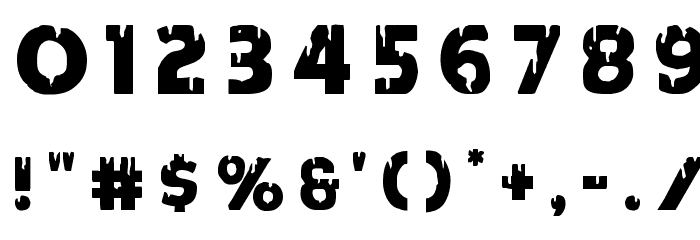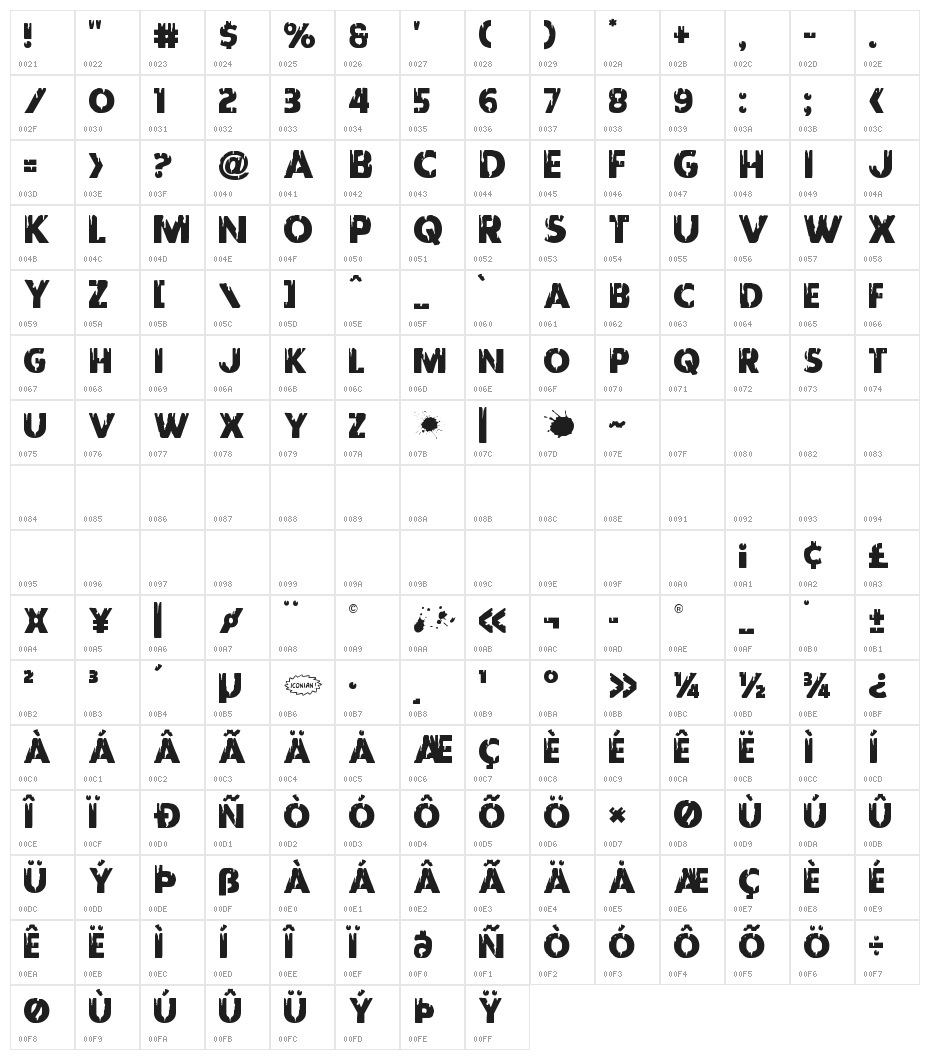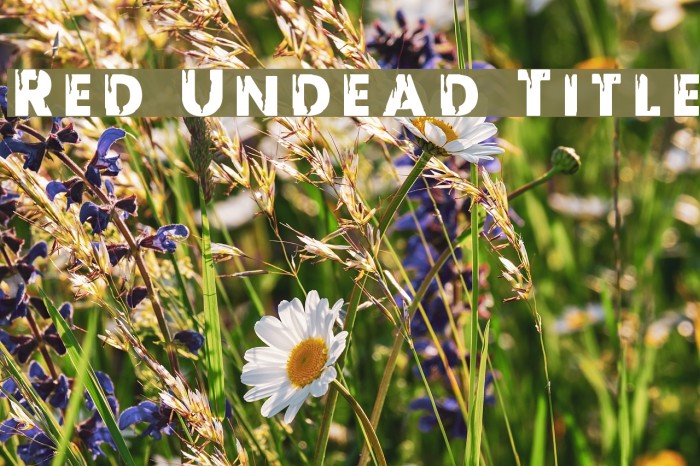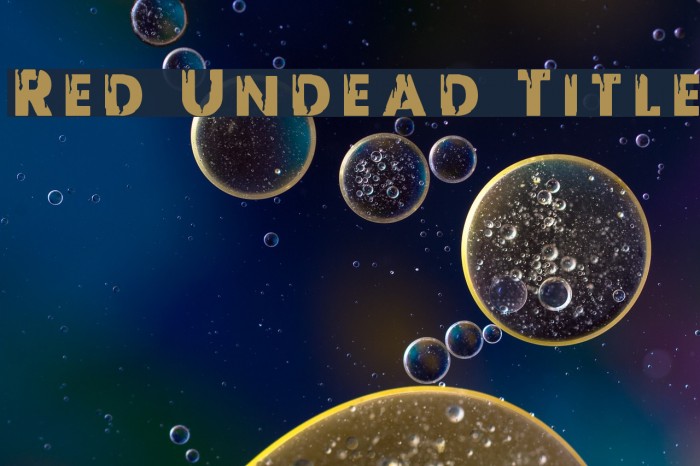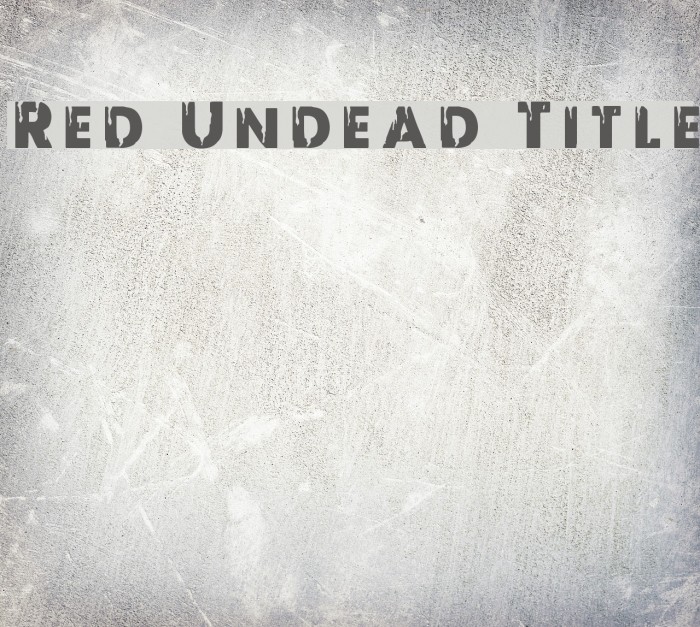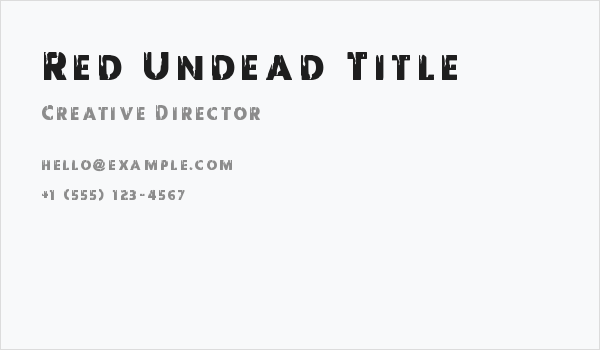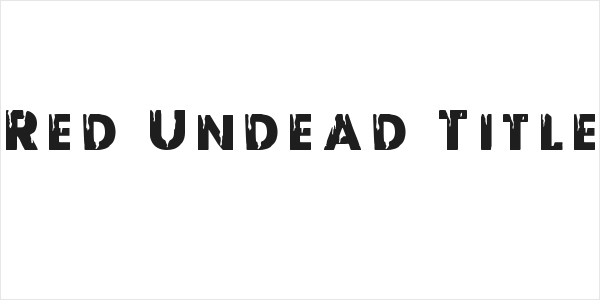
Red Undead Title Font
Red Undead Title Description
This font exhibits a bold and distressed style, characterized by its rough, eroded edges and a strong, impactful presence. The uppercase letters are prominent and commanding, while the lowercase letters maintain the same rugged aesthetic. Numbers and special characters follow suit, providing a cohesive look across all glyphs. The font's design suggests a sense of decay or wear, making it ideal for projects that require a gritty, urban feel. Its boldness ensures readability even at smaller sizes, while the unique texture adds visual interest.
| Proposed Projects | Ideal for horror movie titles, video game graphics, poster designs, and any project needing a rugged, edgy aesthetic. |